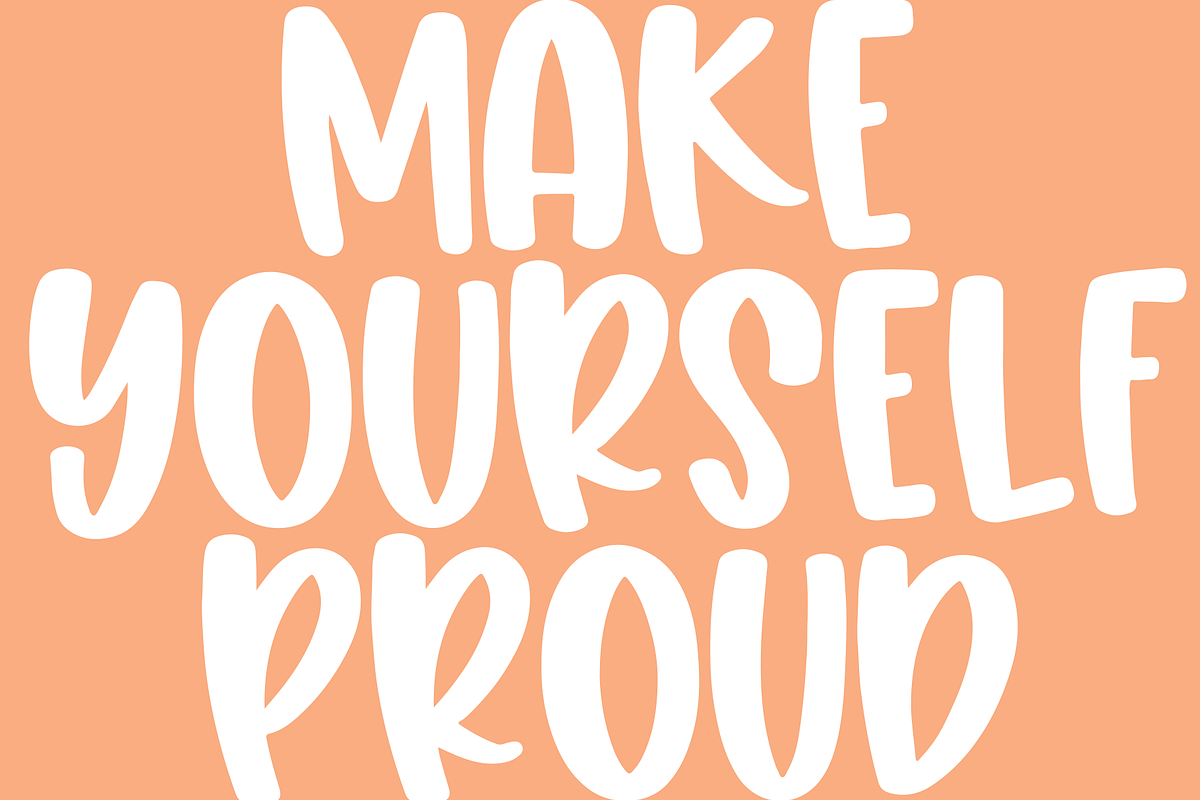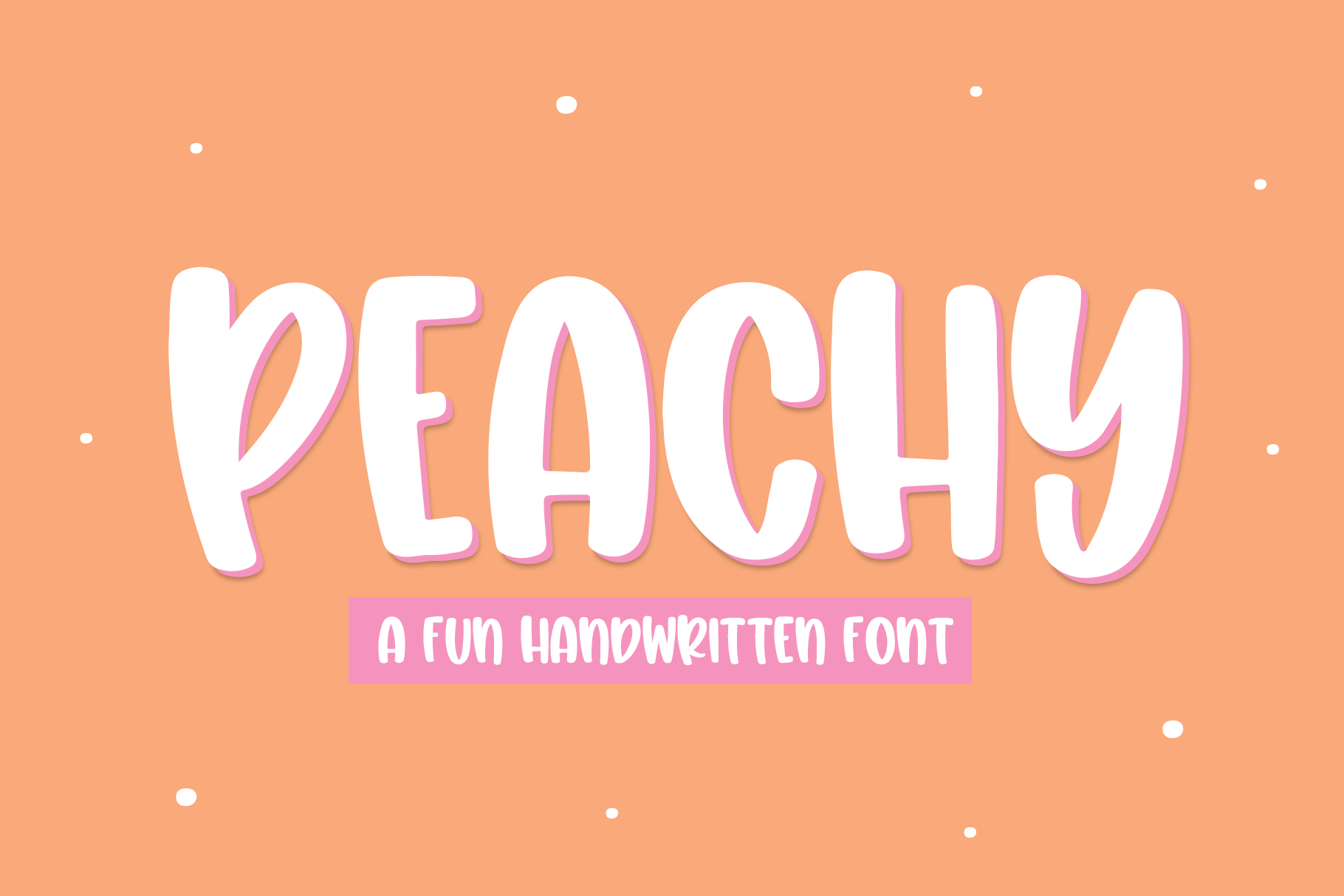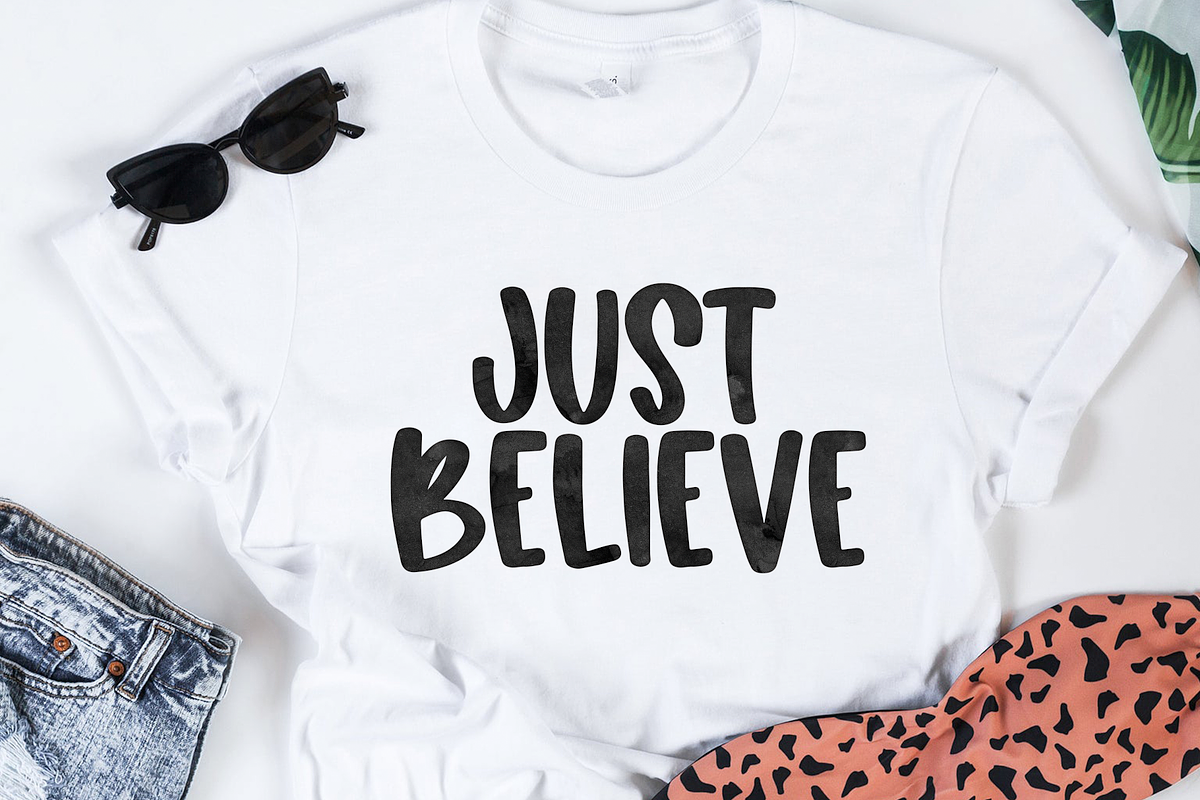
Peachy | Fun Handwritten Font
Peachy is a fun handwritten font. This is an all caps font.
Peachy is perfect for branding, logos, signs, kid's shirts, cricut projects, svg designs, home decor, social media and more!